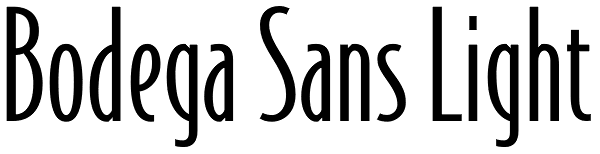
Bodega Sans
Released in 1990, Bodega Sans adopts numerous ideas from the high period of Art Deco, providing designs that are as fresh as they are nostalgic. This geometric series, with its later seriffed companion, Bodega Serif, is unique in offering angular...